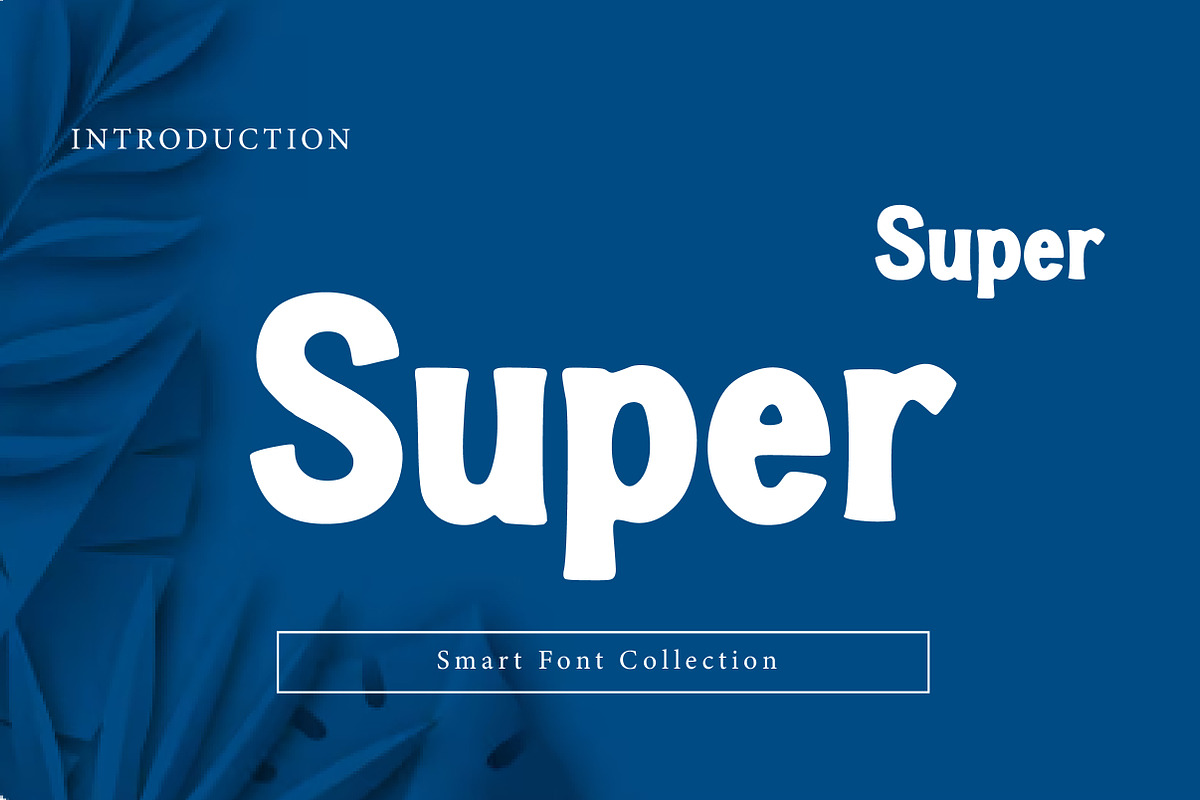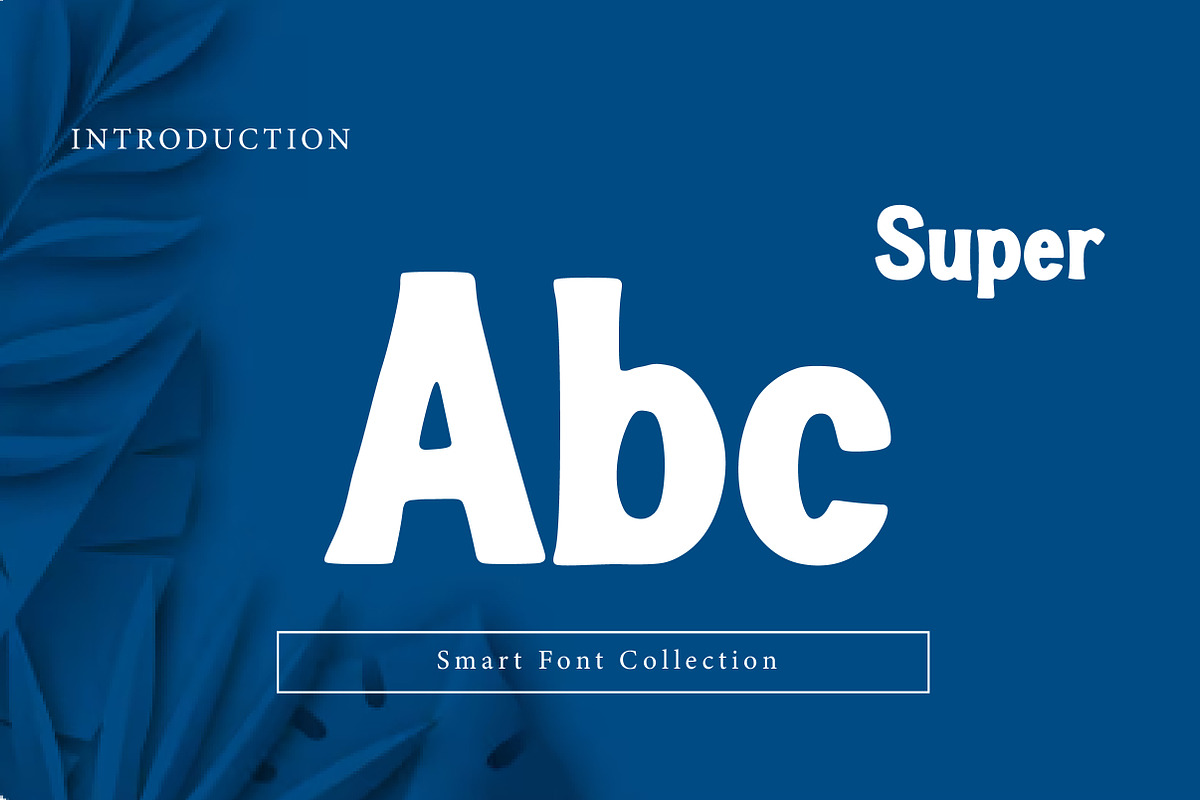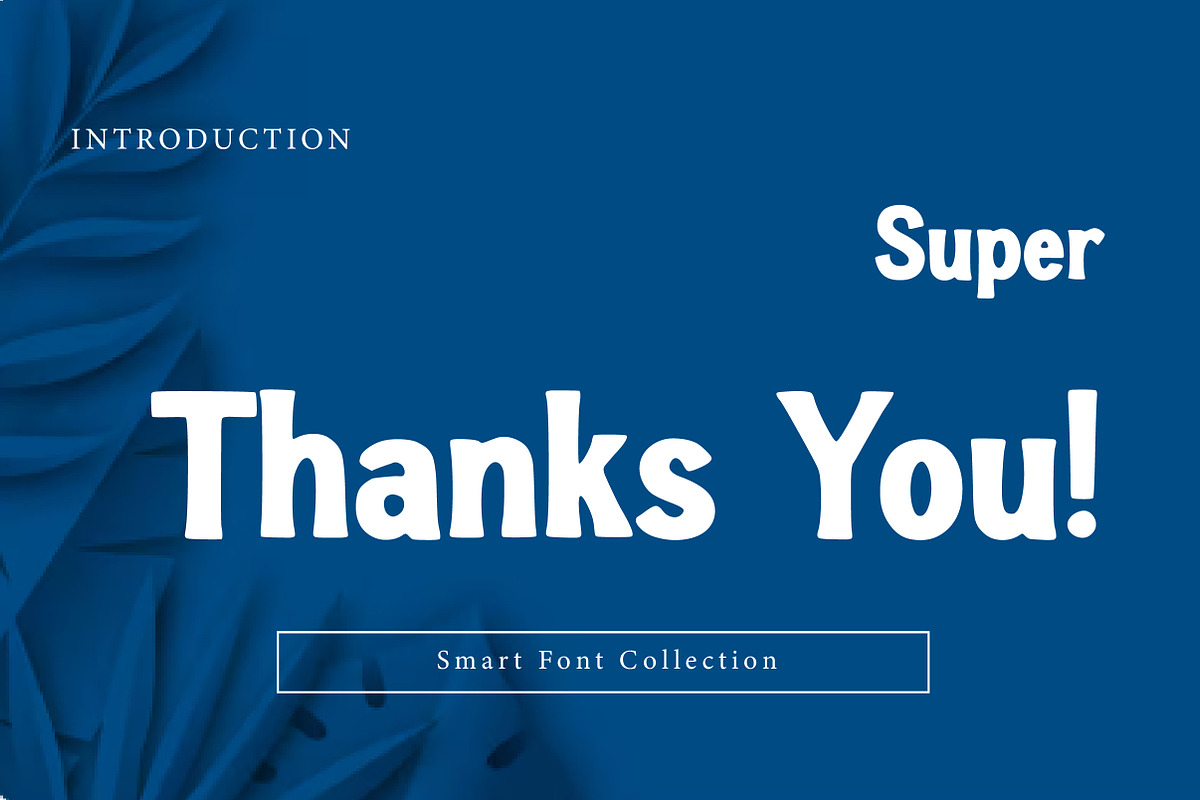
Super
Super is a bold, chunky display font with soft curves and a playful personality. Its thick, rounded shapes and slightly quirky letterforms give it a fun and energetic vibe, making it perfect for kids’ designs, logos, posters, social media graphics, stickers, packaging, and eye-catching headlines. Whether you’re creating cheerful branding or standout merchandise, Super adds confidence, warmth, and bold character to every project.